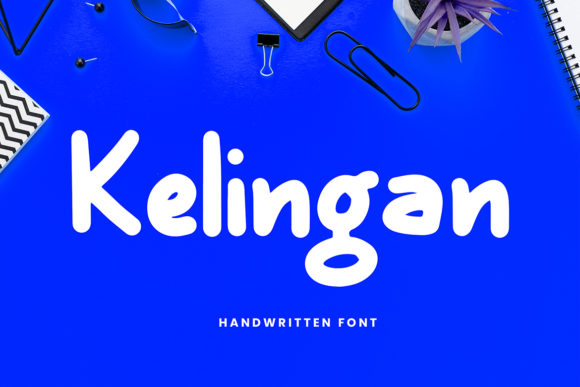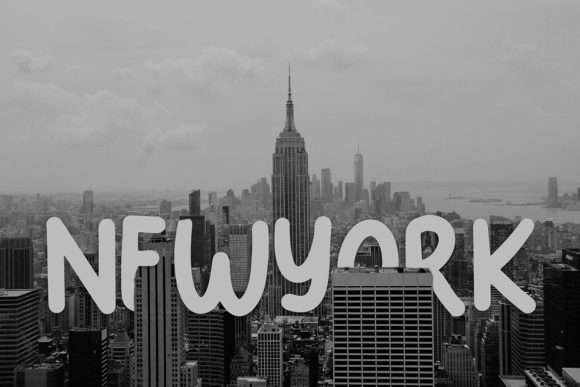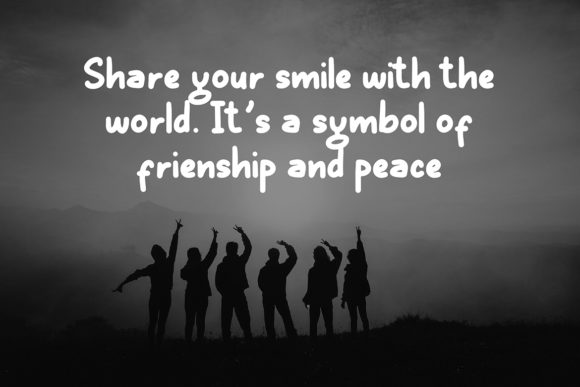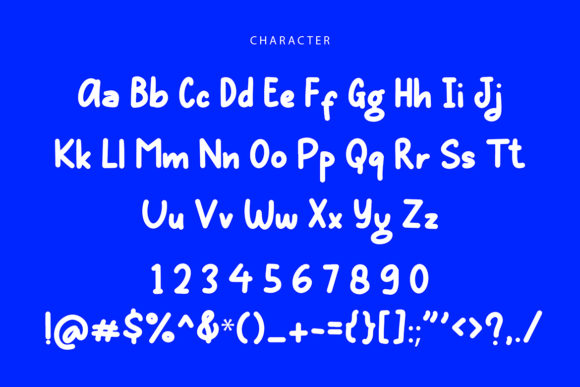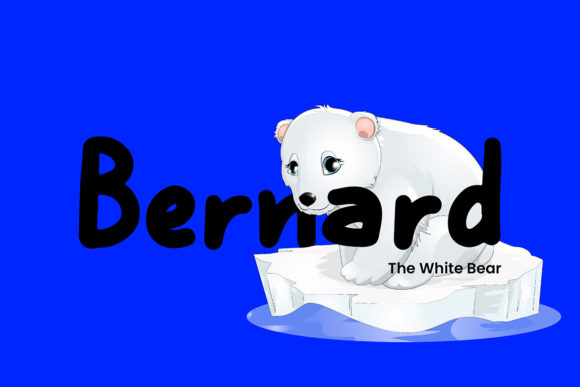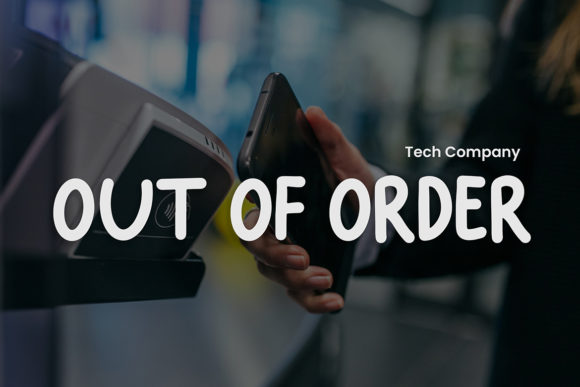
Kelingan Font
About Kelingan Font
Kelingan is an exciting handwritten font. Clean and a little bit quirky, this font is the perfect fit for all of your logos, branding, social media, and crafty DIY projects.